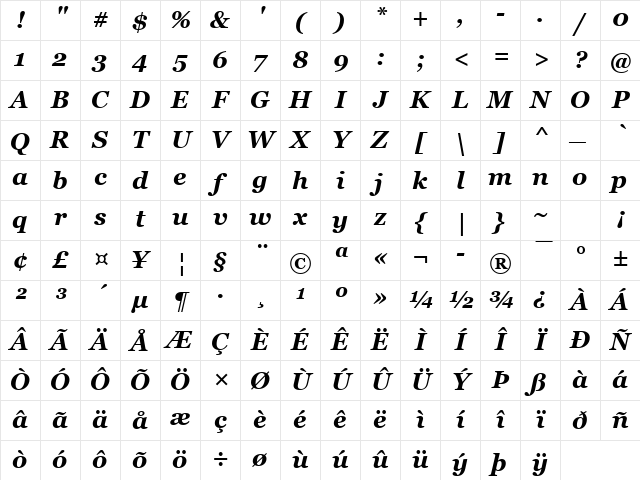
font278 Bold Italic
Design Context for font278
font278 is a composed and adaptable typeface that performs quietly and consistently across a wide range of design contexts. The slanted form adds forward momentum and visual energy. Its bold stroke weight gives it real presence on the page.
Pro Tip: Use font278 for emphasis, pull quotes, and subheadings where its slanted energy can add rhythm to the layout.